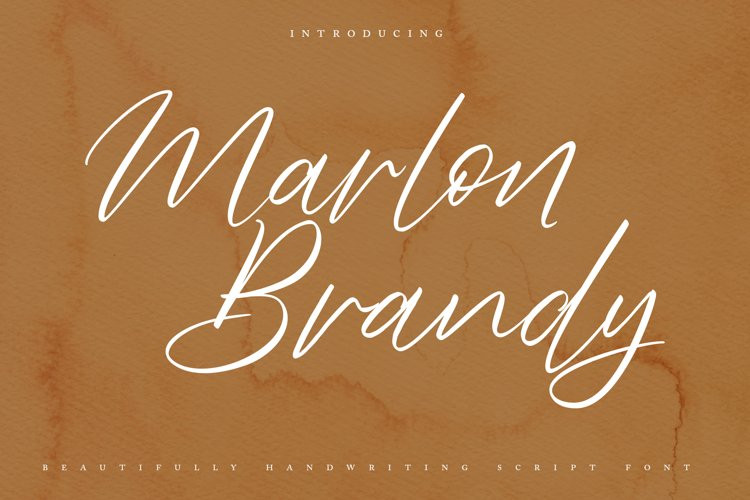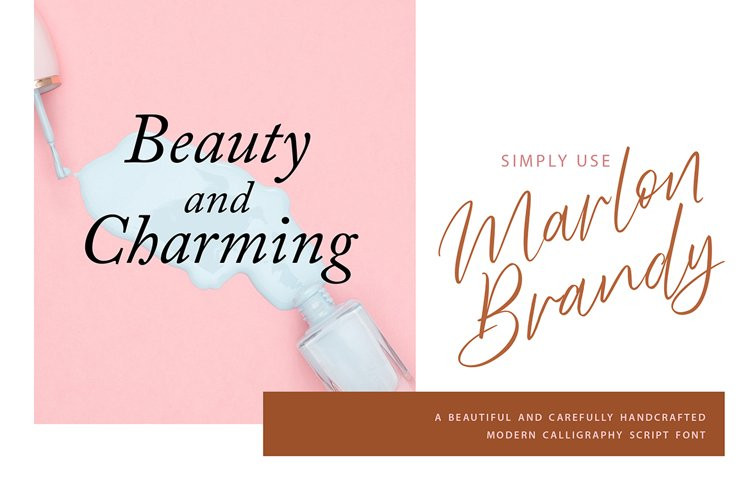
Marlon Brendy Font
Marlon Brendy FontMarlon Brendy Handwriting Script Font – is a new font that is authentic and suitable for many of your visual needs, like for invitation, greeting cards, branding materials, business cards, quotes, posters, and more!